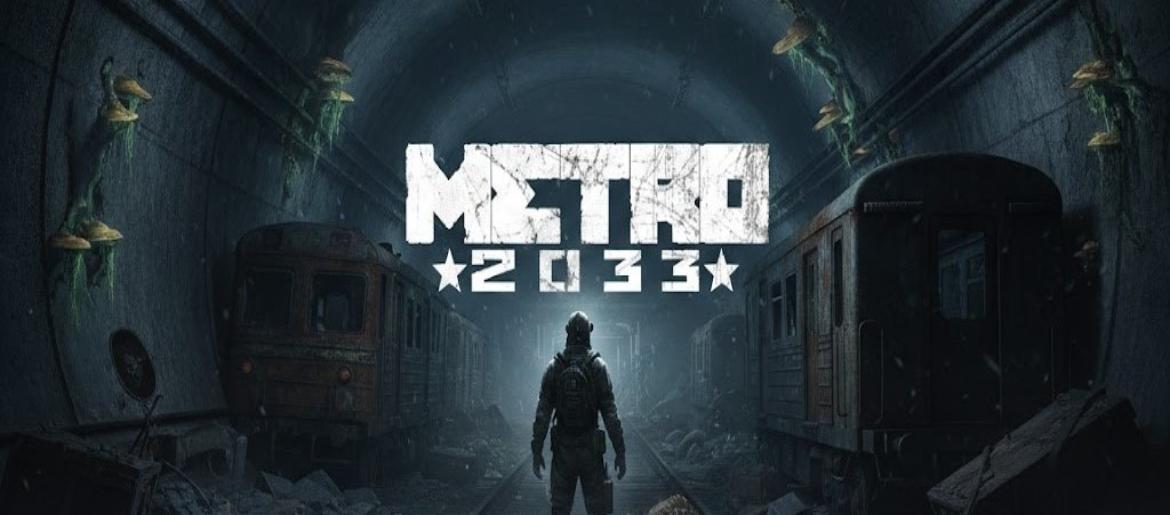
Metro 2033 Font
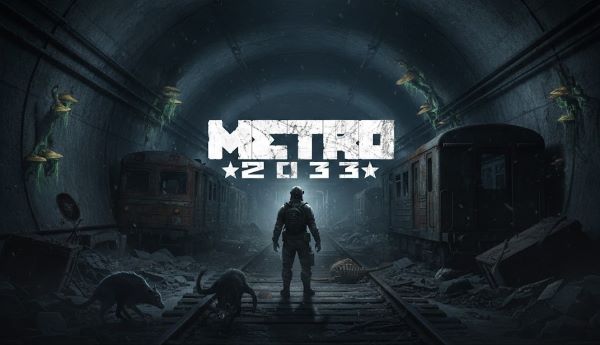
What is The Font Of Metro 2033?
The Metro 2033 Font is based on two typefaces used in the game’s logo design. The main “Metro” text closely resembles Agit Prop, a geometric sans-serif font designed by Sergey Kazakov, featuring blocky forms and a worn, grungy texture. The “2033” numerals appear to match Red October by Neogrey Creative, a square sans-serif display font with strong industrial geometry. Together, these fonts create a harsh, dystopian, and post-apocalyptic visual identity. Both Agit Prop and Red October are available for free download, making them popular choices for fan projects and mockups.
About Metro 2033
Metro 2033 is a first-person shooter survival game released in 2010 by 4A Games. Based on Dmitry Glukhovsky’s novel, it is known for its bleak atmosphere and immersive storytelling, strongly supported by its gritty typography.